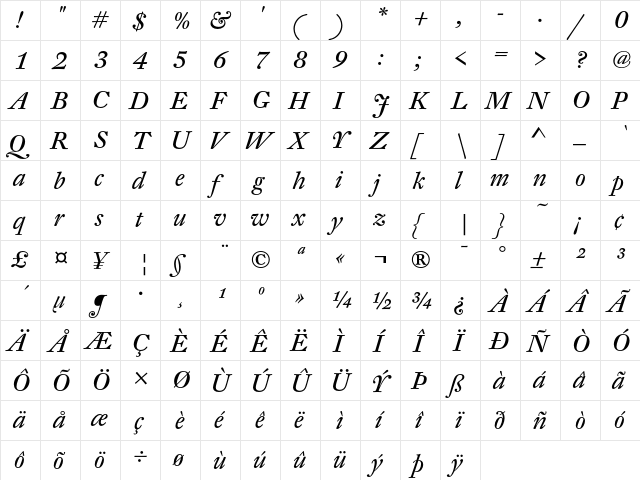
DTLFleischmannT Italic
Design Context for DTLFleischmannT Typeface
DTLFleischmannT is a composed and adaptable typeface that performs quietly and consistently across a wide range of design contexts. Its italic angle brings a sense of urgency and motion to the letterforms.
Pro Tip: Use DTLFleischmannT for emphasis, pull quotes, and subheadings where its slanted energy can add rhythm to the layout.